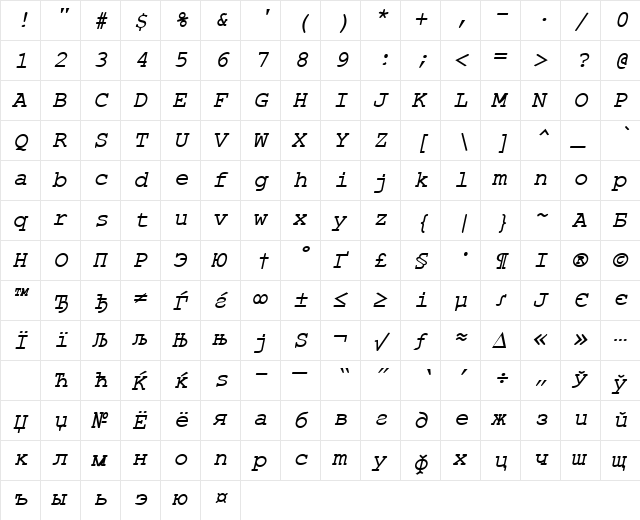
ER Kurier Mac Italic
Design Context for ER Kurier Mac Typeface
ER Kurier Mac is a composed and adaptable typeface that performs quietly and consistently across a wide range of design contexts. The dynamic lean of this cut emphasises speed and emphasis in any layout.
Pro Tip: Try ER Kurier Mac for annotation and caption copy alongside an upright companion — the contrast in angle creates a dynamic but ordered typographic system.